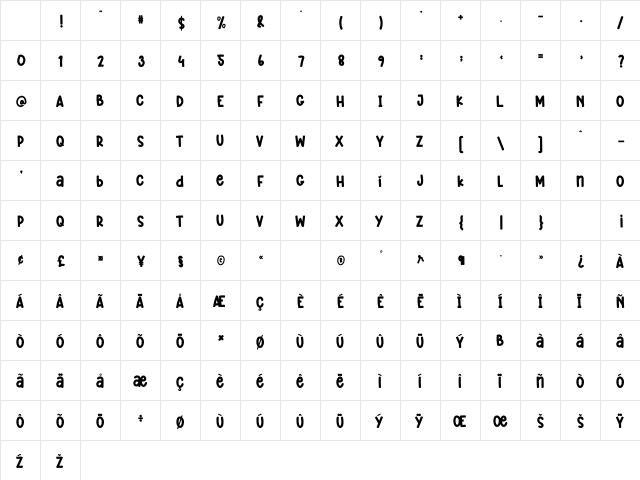
Complete Winter Farmhouse Regular glyph index. Displaying only characters natively supported by Winter Farmhouse Regular font.
Winter Farmhouse is a composed and adaptable typeface that performs quietly and consistently across a wide range of design contexts.